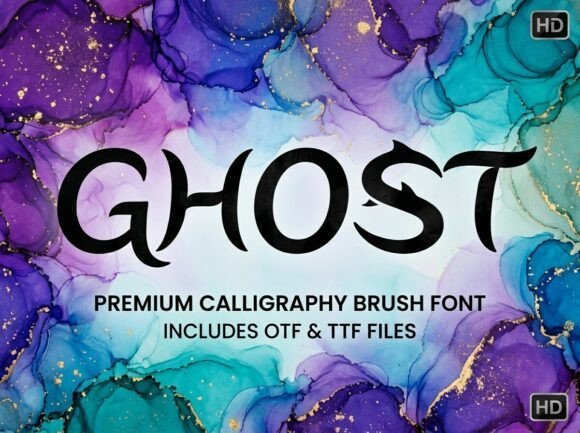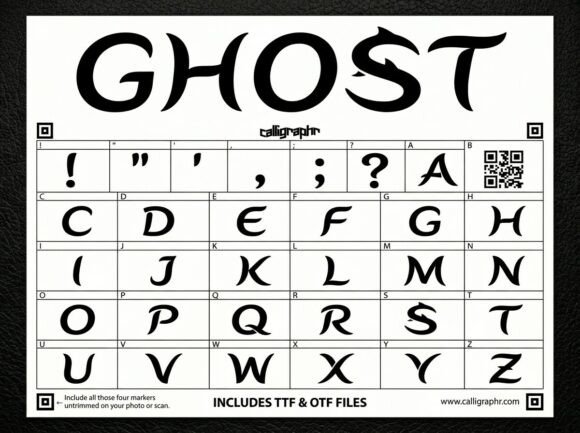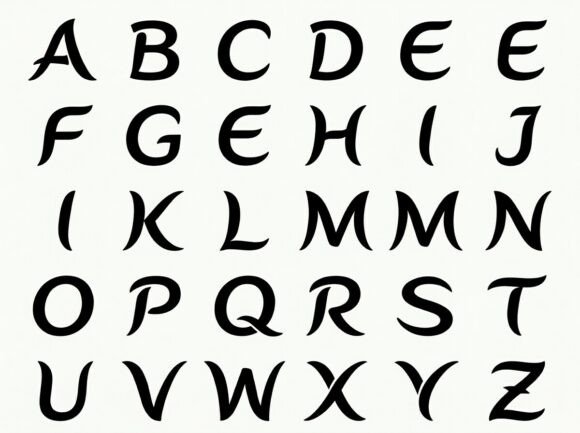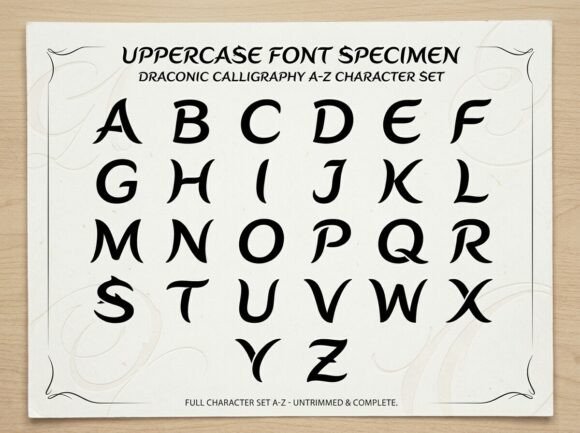
The Moment of Creative Breakthrough
There’s nothing quite like the rush of inspiration that comes with a new project. You’re brainstorming ideas, sketching out concepts, and finally, you land on the perfect font to bring it all together. For designers, the right font can make or break a design – it’s the difference between a good piece and a great one. That’s where the Ghost Font comes in, a stunning decorative display font designed to be the center of attention.
This versatile font is perfect for bold headlines, artistic logos, and creative packaging, while maintaining a professional and polished finish. With its unique artistic elements and strong visual personality, the Ghost Font is a valuable addition to any designer’s toolkit. Whether you’re working on a high-impact campaign or simply want to add some flair to your next project, this font is sure to impress.
Ghost Font Key Features
- Unique Characteristics: Ghost Font features a unique, hand-drawn design with subtle ghostly textures, adding a touch of elegance and sophistication to any text.
Ghost Font Review
As a designer, I had the chance to work with the Ghost Font, and I must say, it’s an interesting choice. There are some aspects that I really enjoy, ✨
- Firstly, the font’s subtle, eerie feel is perfect for designing spooky or mystical-themed projects. It’s an instant conversation starter and adds an air of mystery to any design.
- The Ghost Font also has a wide range of weights and styles, making it suitable for various design applications, from titles to body text.
- Lastly, the font’s versatility in pairing with other fonts is impressive, allowing designers to experiment with unique combinations and create visually appealing designs.
However, there are some limitations to consider ⚠️
- One major drawback is that the font can be quite difficult to read, especially in smaller text sizes. This might be a challenge for designers working on projects that require clear, concise text.
- The font also seems to have some compatibility issues with certain software, which can be frustrating when working on collaborative projects.
Overall, I think the Ghost Font is a unique and intriguing choice for designers who want to add a touch of eeriness to their work. While it may have its limitations, I believe it can be a valuable addition to any design toolkit.
Tips for Getting the Most Out of Ghost Font
To maximize the effectiveness of Ghost Font, use it sparingly and in context. Pair it with bold, contrasting fonts to create visual interest and hierarchy. Experiment with different font sizes and styles to create a unique look.
Common Use Cases for Ghost Font
Ghost Font is commonly used in:
- Graphic design and branding
- Editorial and publishing
- Advertising and marketing